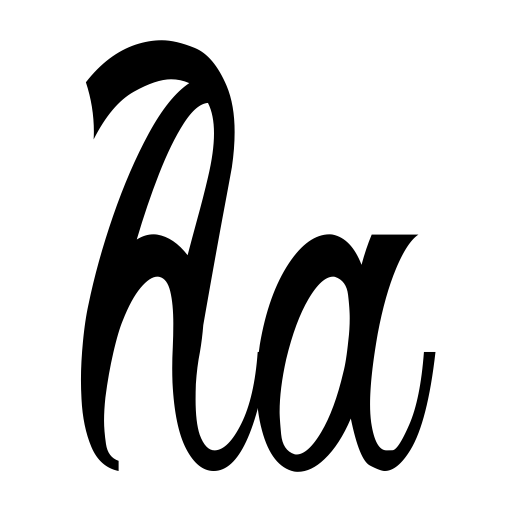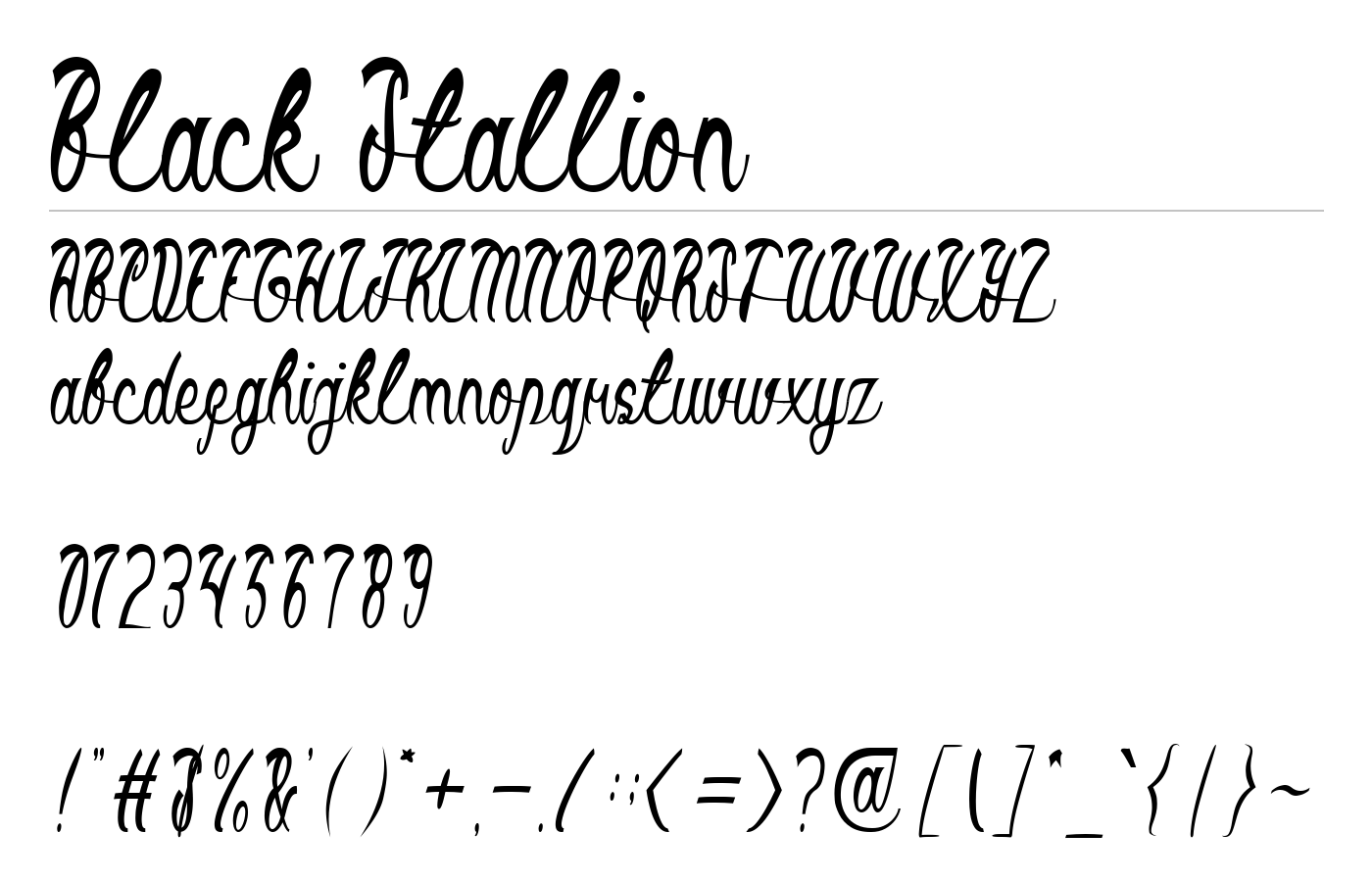
Black Stallion is a stylish, condensed script font with a lively, hand-drawn feel. Its smooth, flowing strokes and upright slant give it a dynamic yet elegant character, making it ideal for creative branding, invitations, and display use where a personal, artistic touch is desired. This font brings a charming, vintage-inspired flair that adds warmth and personality to any design.
Black Stallion Font
About Black Stallion Font